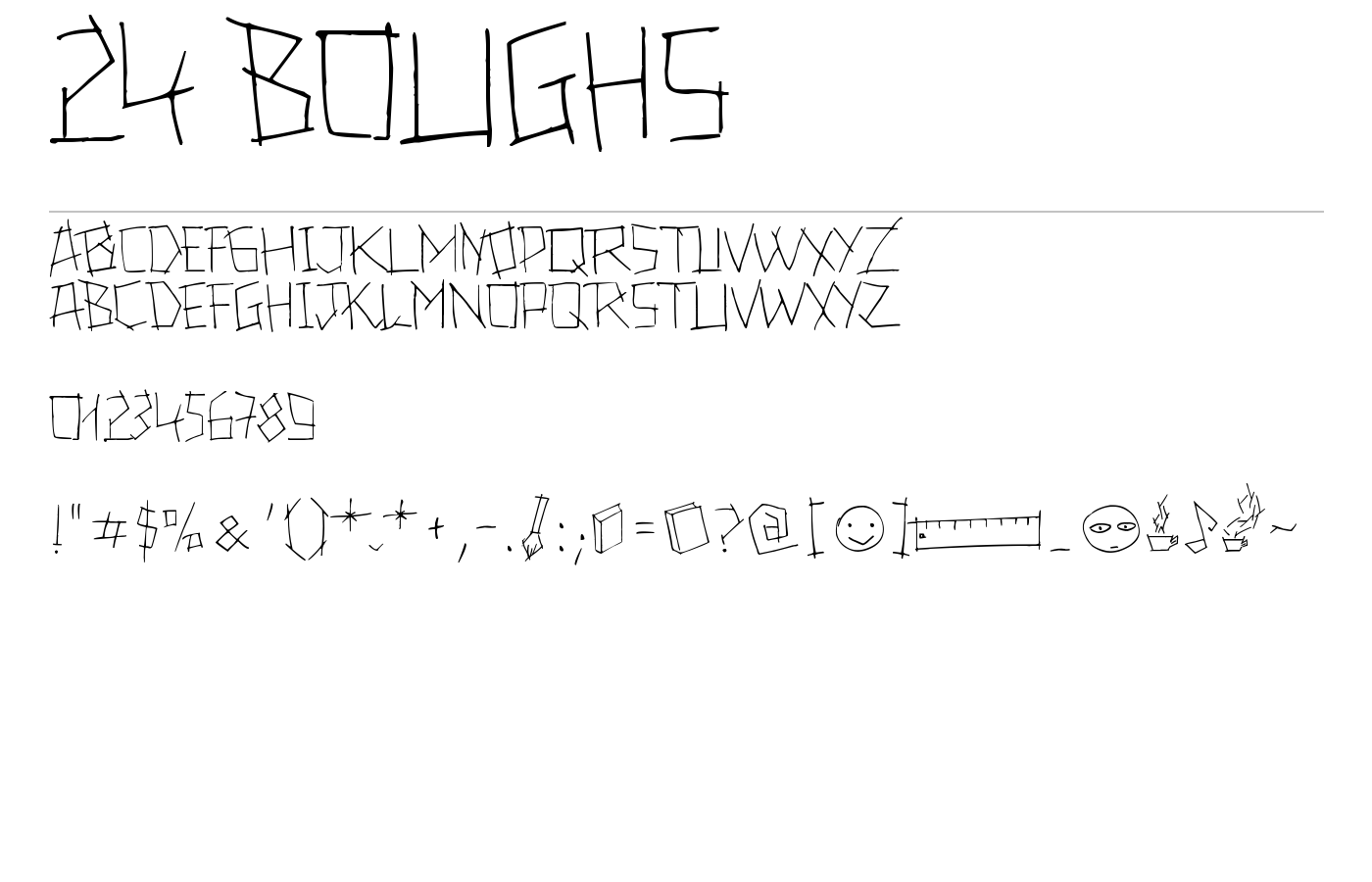
24 Boughs Regular is a unique, hand-drawn sans serif font with a quirky, organic feel, featuring irregular, twig-like strokes that resemble natural branches. Its slender, tall letterforms with uneven lines and playful character give it a casual, artistic vibe, perfect for creative projects, informal branding, or designs that want to evoke a sense of handmade charm and nature-inspired whimsy. This font works best in headlines, posters, and logos where personality and individuality stand out.
| Font family | 24 boughs Regular Font |
| Designer | Le Thi Thu Huong |